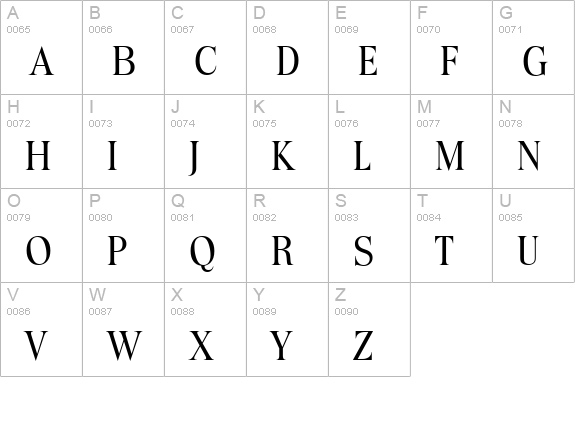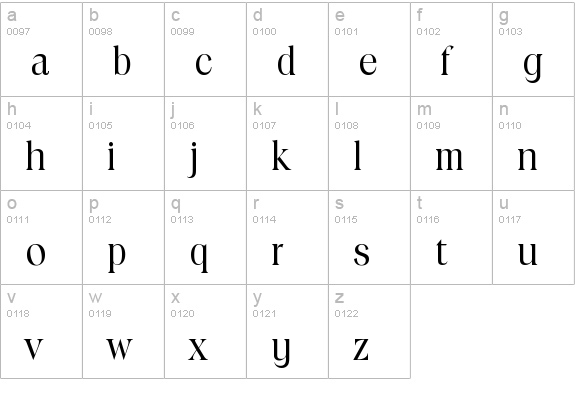
ToledoSerial-Regular Font Details
ToledoSerial-Regular is the standard, neutral variant in the ToledoSerial typeface family \xE2\x80\x94 well suited to general body text, paragraphs, and standard typographic work.
ToledoSerial-Regular is a versatile and modern font that exudes a sense of sophistication and elegance. With its clean lines and sharp edges, this typeface is perfect for a wide range of design projects, from branding to editorial design. The sleek and professional appearance of ToledoSerial-Regular will add a touch of class to any project, making it stand out from the crowd. What's even better is that ToledoSerial-Regular is available for free download at FontsMarket.com. Whether you're a professional designer or a hobbyist looking to elevate your projects, this font is a must-have in your collection. Don't miss out on this opportunity to enhance your designs with the timeless beauty of ToledoSerial-Regular. Download it today and start creating stunning visuals that will leave a lasting impression.